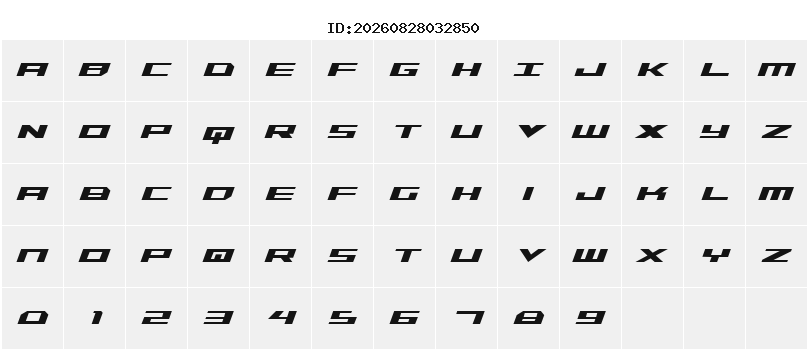
Trireme Condensed Bold Italic Preview
• Font Name: Trireme Condensed Bold Italic
• Font Style: Condensed Bold Italic
• Full Font Name: Trireme Condensed Bold Italic
About Trireme Condensed Bold Italic.ttf
Trireme Condensed Bold Italic.ttf is a modern, elegant sans-serif font designed for ultimate readability and visual harmony. Perfect for branding, headlines, web design, and print materials.